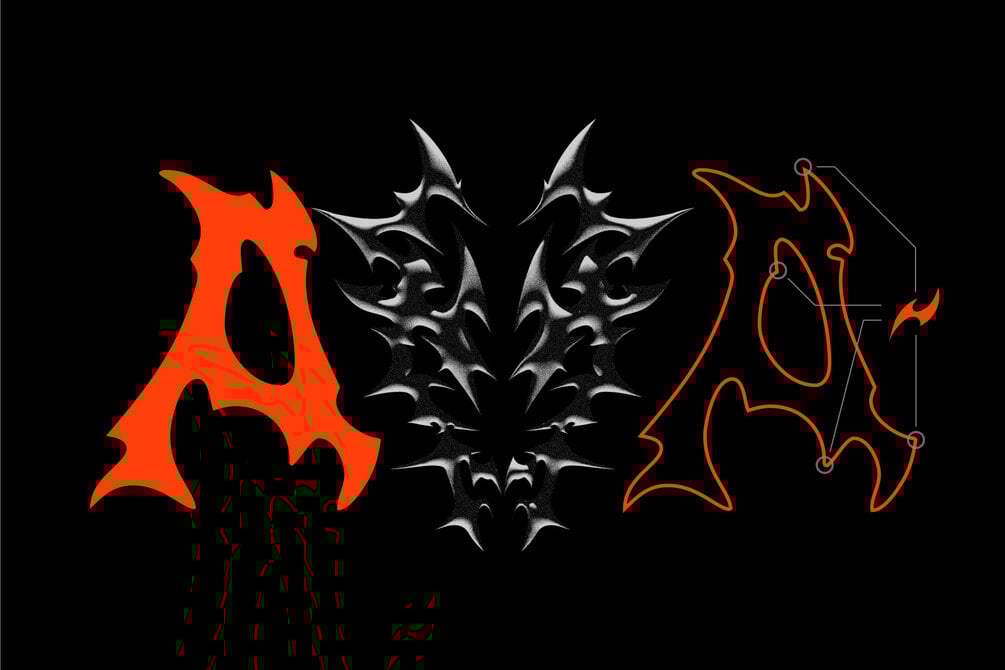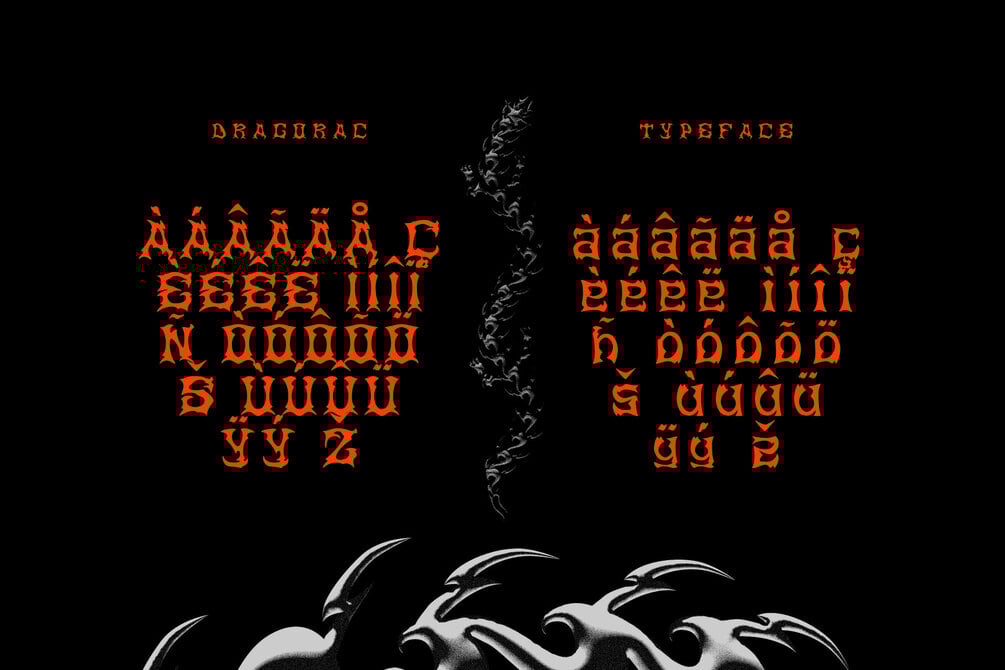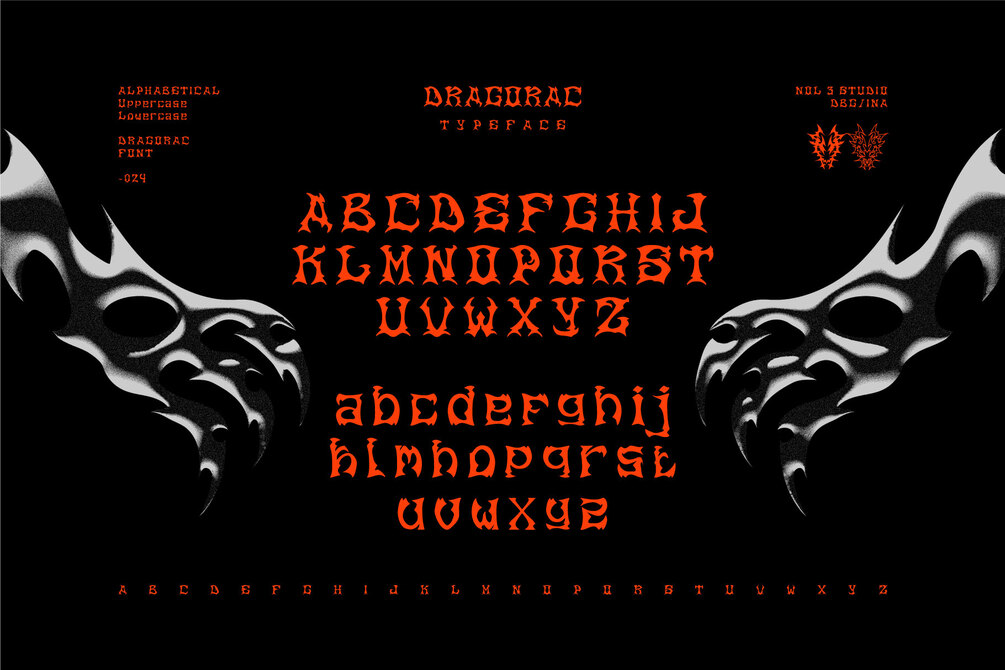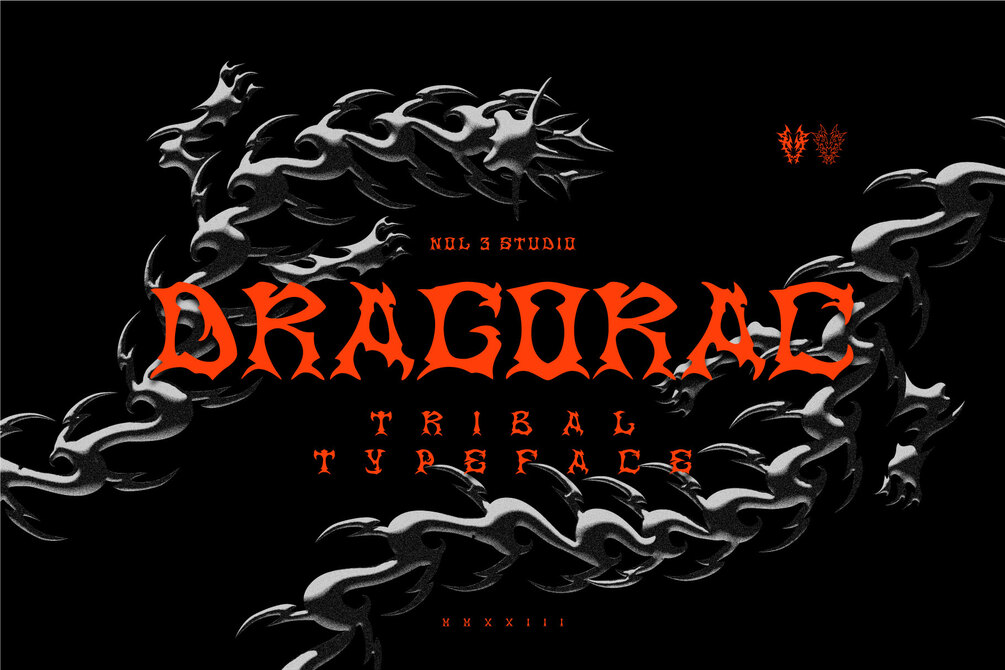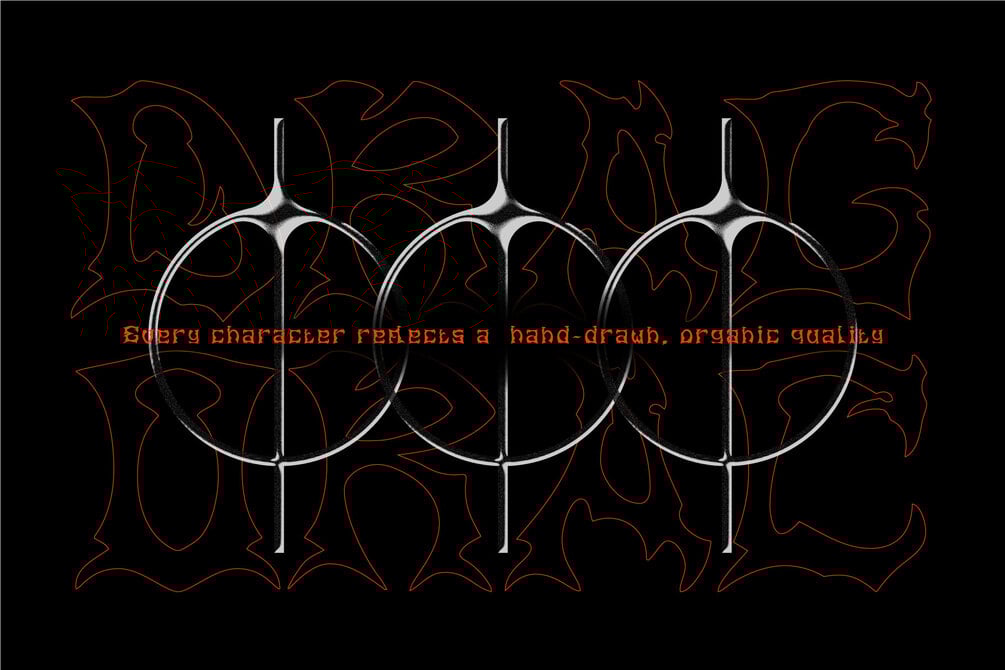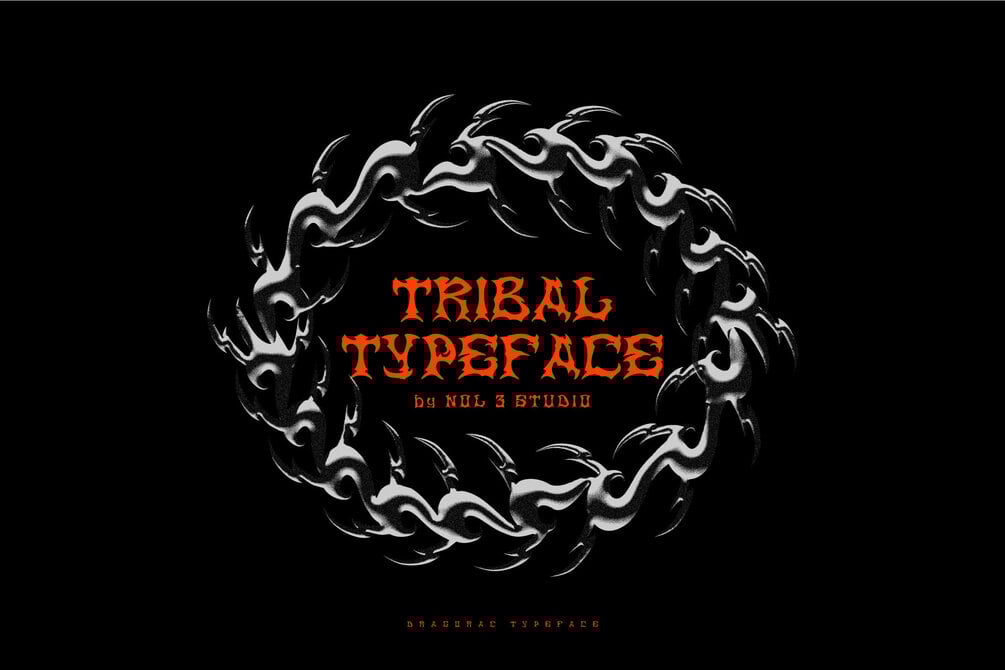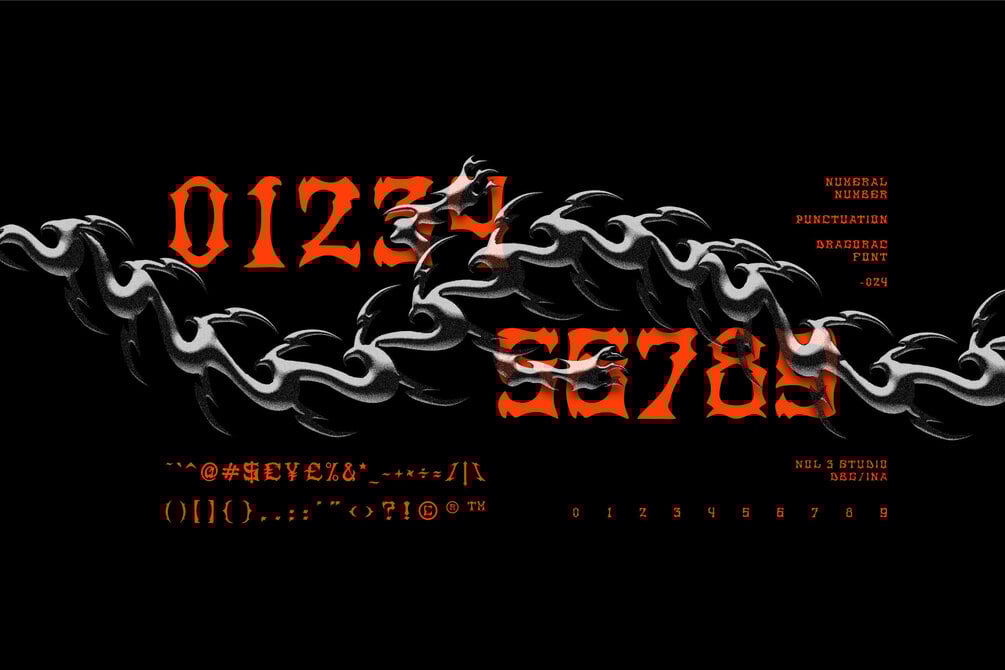
DRAGORAC | Tribal Font
Dragorac Tribal Font, inspired by the intricate patterns and hand-drawn aesthetics of indigenous cultures, it captures the spirit of storytelling through its unique letterforms
Key Features
• The Font Contains 200+ Glyphs
• Uppercase & Lowercase
• Numbers & Punctuation
• Standard Ligatures
• Multilingual Support